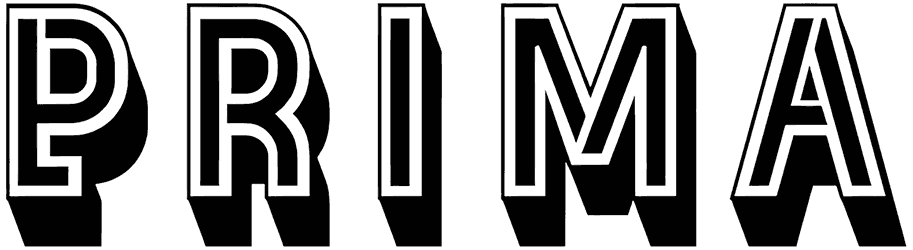
Prima Font
Shadow font like Prima has an identically outlined design and slightly dated characters. In spite of its lack of lowercase letters, it is an excellent tool for stirring up strong feelings in your audience.
All chiseled fonts like this one are an elegant choice for branding, magazines, editorials, and logo design projects that call for an eye-catching, bewildering aesthetic. Let’s see how many other retro fonts in our online collection are comparable to this one.